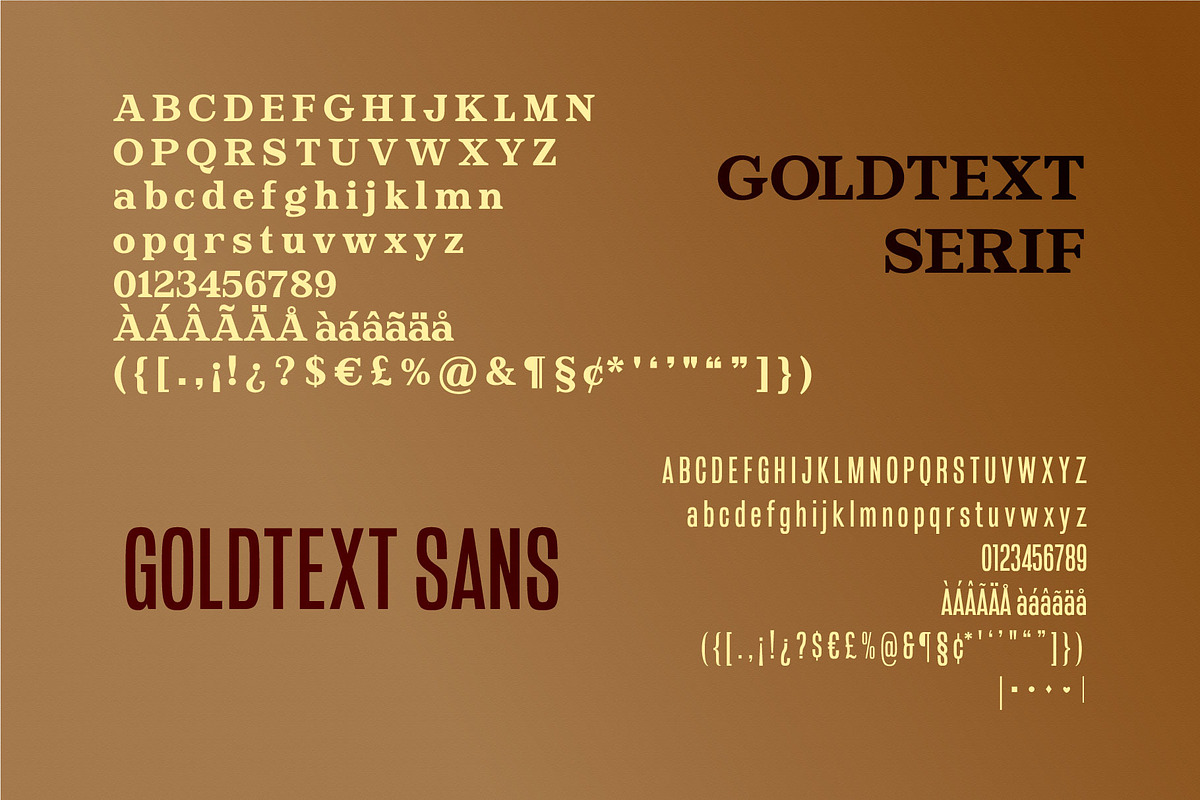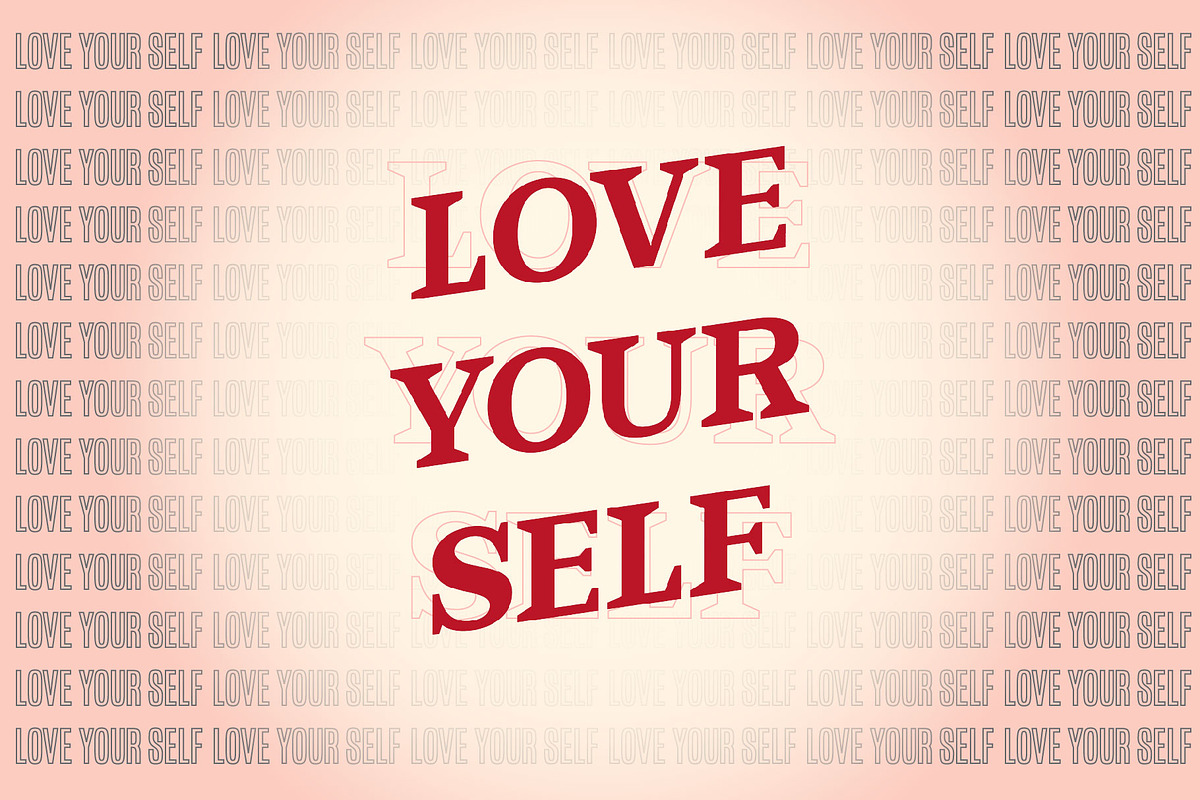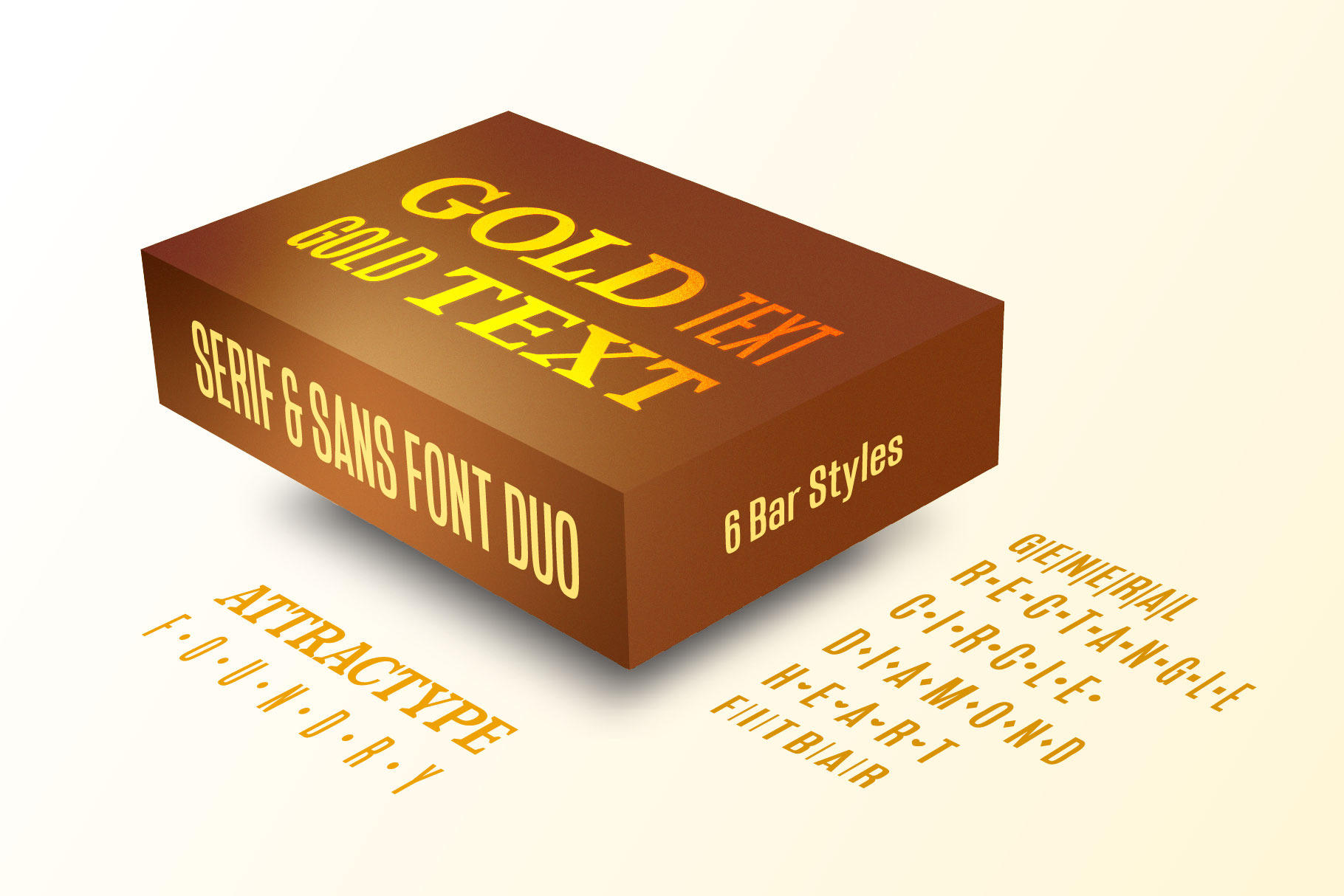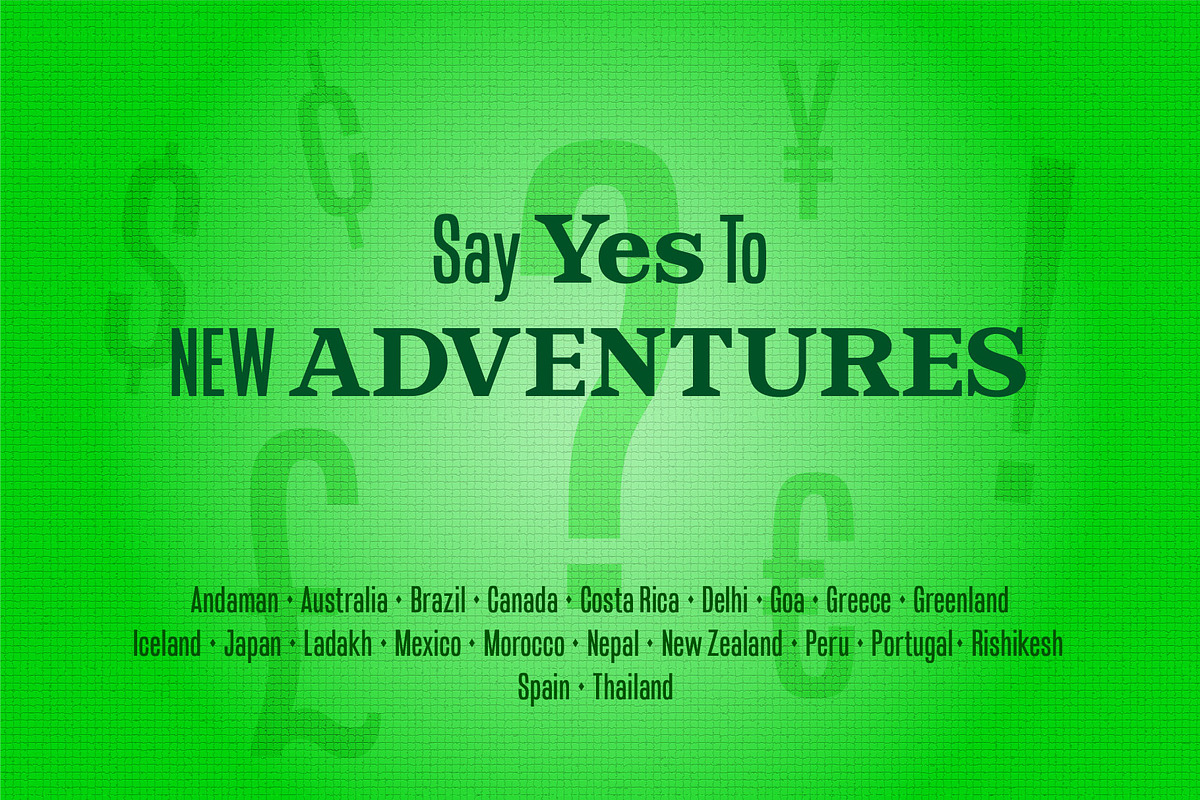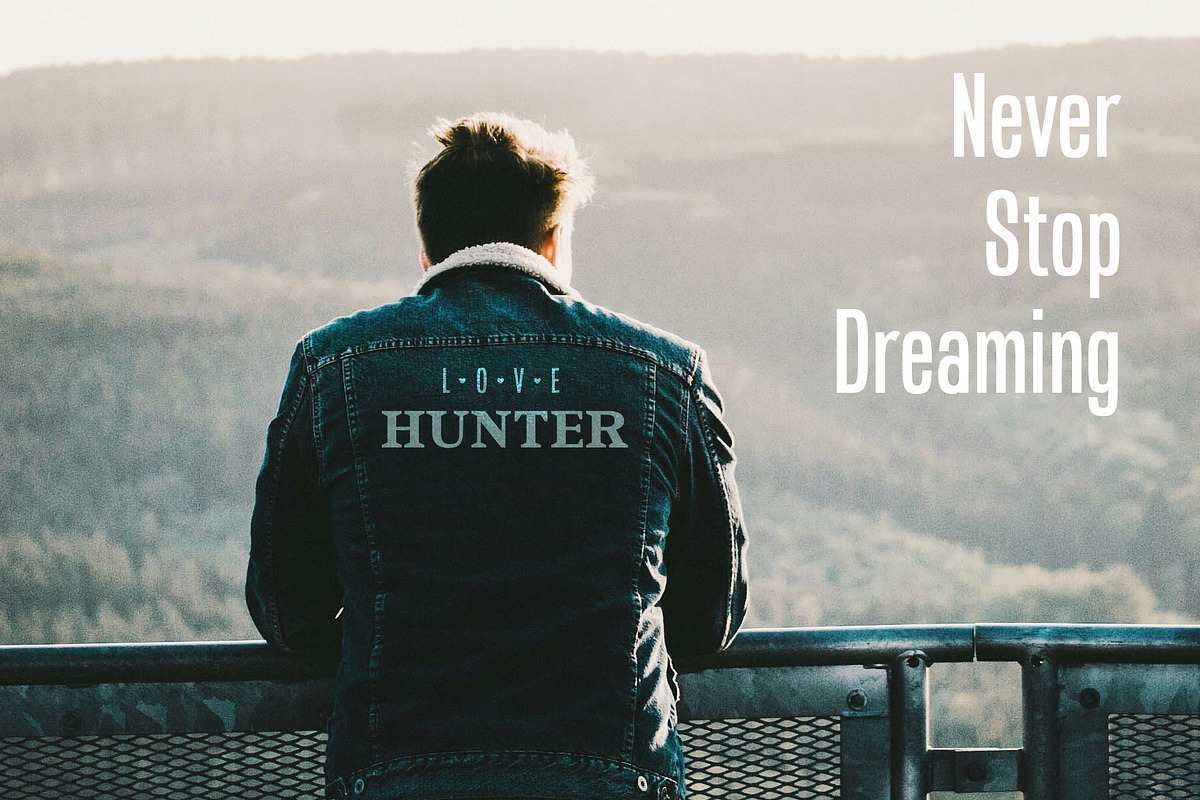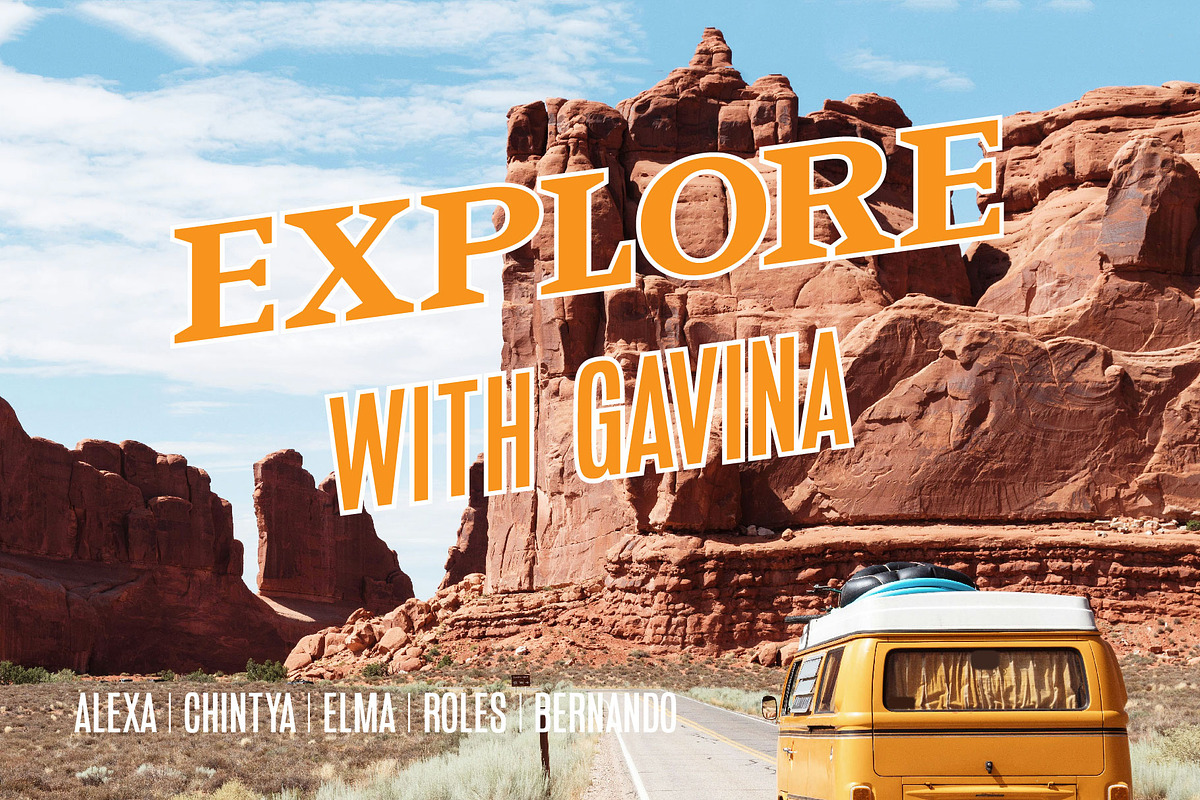
Goldtext Duo - Versatile Font Duo
Goldtext serif and Goldtext sans are a great pair of bold fonts that are sharp and easy to read. This font pair is suitable for various designs such as logos, posters, movie posters, magazine covers, book covers, billboards, directions, banners and others.
Goldtext sans has 6 bar options (|) which can be used for word separation or other purposes. This Font Duo also supports multiple languages. Feel free to contact me regarding this font.